Have you ever think how nice typography using your favorite movie? Today you have an opportunity to find and get your favorite movie font from this nice compilation. Proper selection of movie fonts helps in promoting a movie, create an poster orflyer or it can be great for your personal design project. The movie title also plays an important role to enhance the movie theme that we wish to convey to the audience.
Here we showing amazing examples of fonts that present comedy, animations and thriller or even horror movies. For this article we have composed some of the top movie fonts that are available for downloading purposes and can be used for personal purposes. Enjoy them today.
1. Star Jedi Font
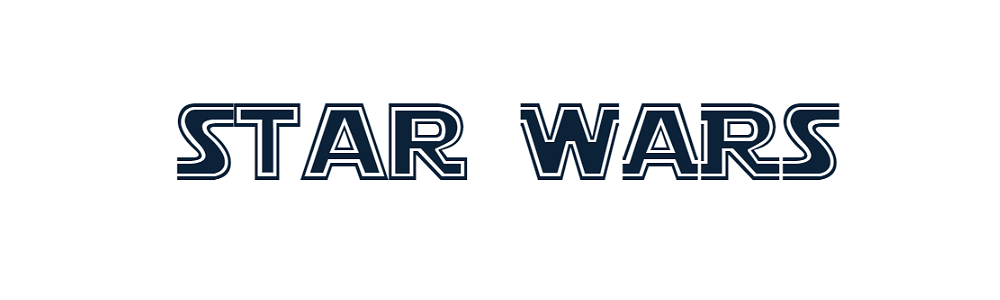
2. Transformers Movie Font
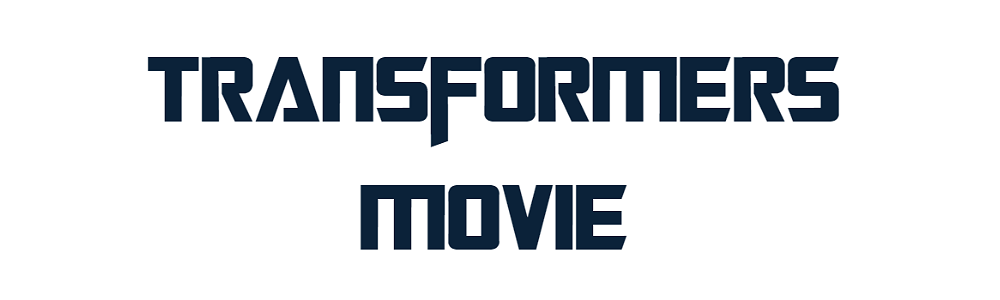
3. Avengers Font
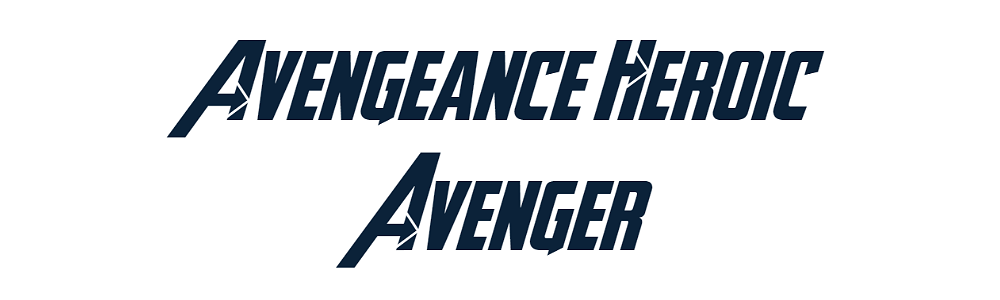
4. Lion King Font
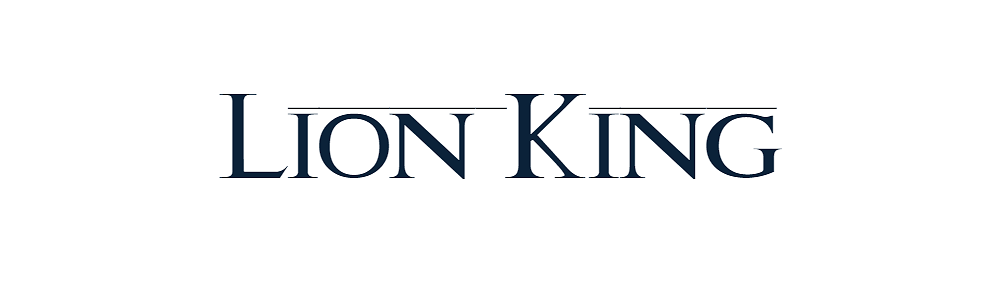
5. Tron Font
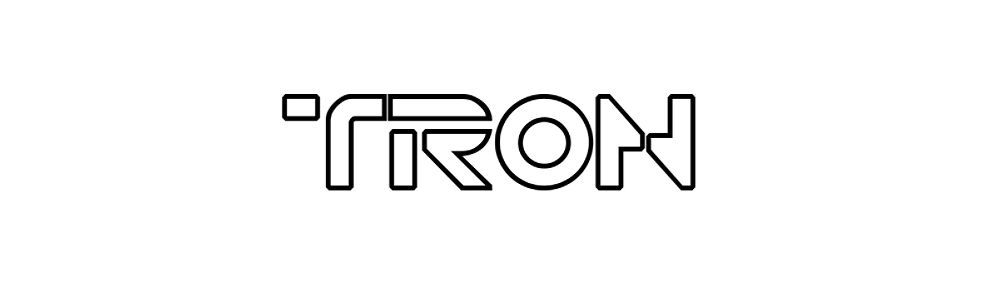
6. Pokemon Font
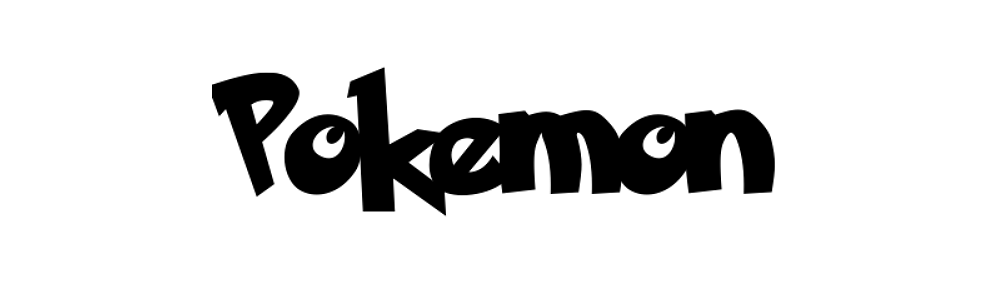
7. Alien League Font
8. Terminator Font
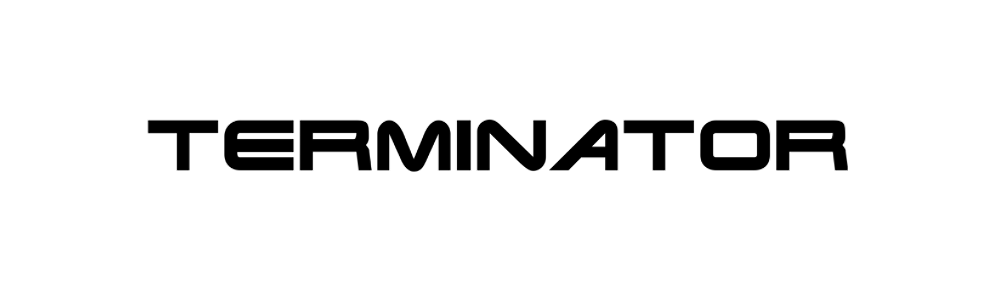
9. Prometheus Font
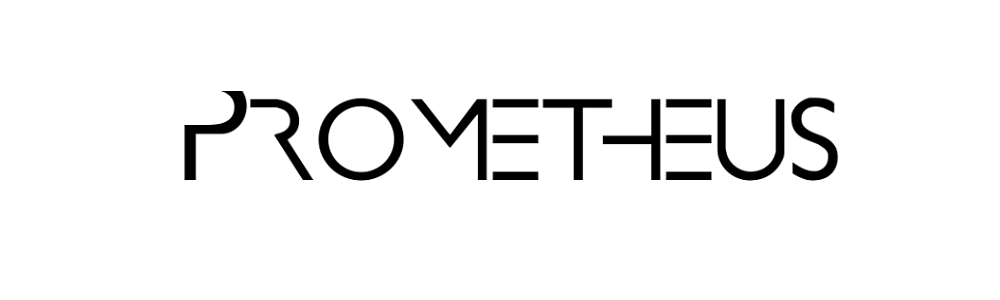
10. Raider Crusader Font
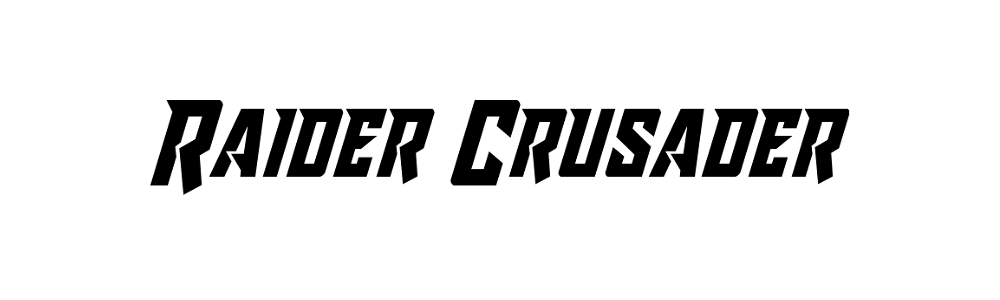
11. Monster AG Font
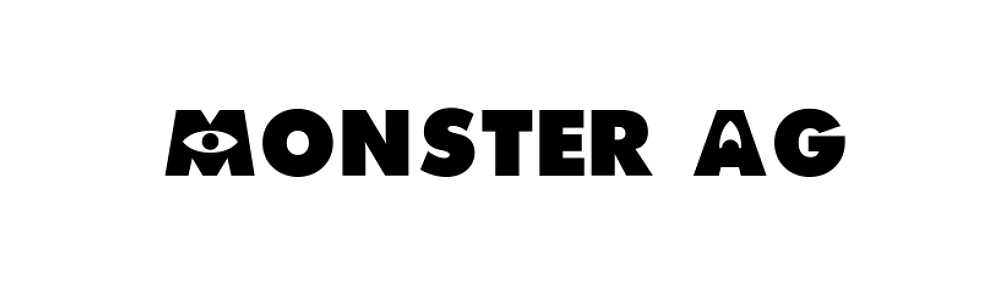
12. Harry Potter Font
13. Casper Font
14. Matrix Font
15. The Godfather Font
It is a free font for personal and commercial use created by DJ-JohnnyRka. This font has 1 styles available. Perfect for posters, flyers and professional “The Godfather” movie designs.
16. Dark & Black Font
It is a free font for personal use only created by Sharkshock. This font has 1 styles available. Perfect for posters, flyers and professional “Dark & Black” movie designs.
17. Willy Wonka Font
It is a free font for personal use only created by Sharkshock. This font has 1 styles available. Perfect for posters, flyers and professional “Willy Wonka” movie designs.
18. Friday 13 Font
It is a free font for personal use only created by Thomas W.Otto. This font has 1 styles available. Perfect for posters, flyers and professional “Friday 13” movie designs.
19. Miltown II Font
It is a free font for personal and commercial use created by Apostrophic Labs. This font has 1 styles available. Perfect for posters, flyers and professional “Miltown II” movie designs.
20. Aliens and Cows Font
It is a free font for personal use only created by Thomas Zetafonts. This font has 7 styles available. Perfect for posters, flyers and professional “Aliens and Cows” movie designs.
31. Scream Real Font
32. Corleone Font